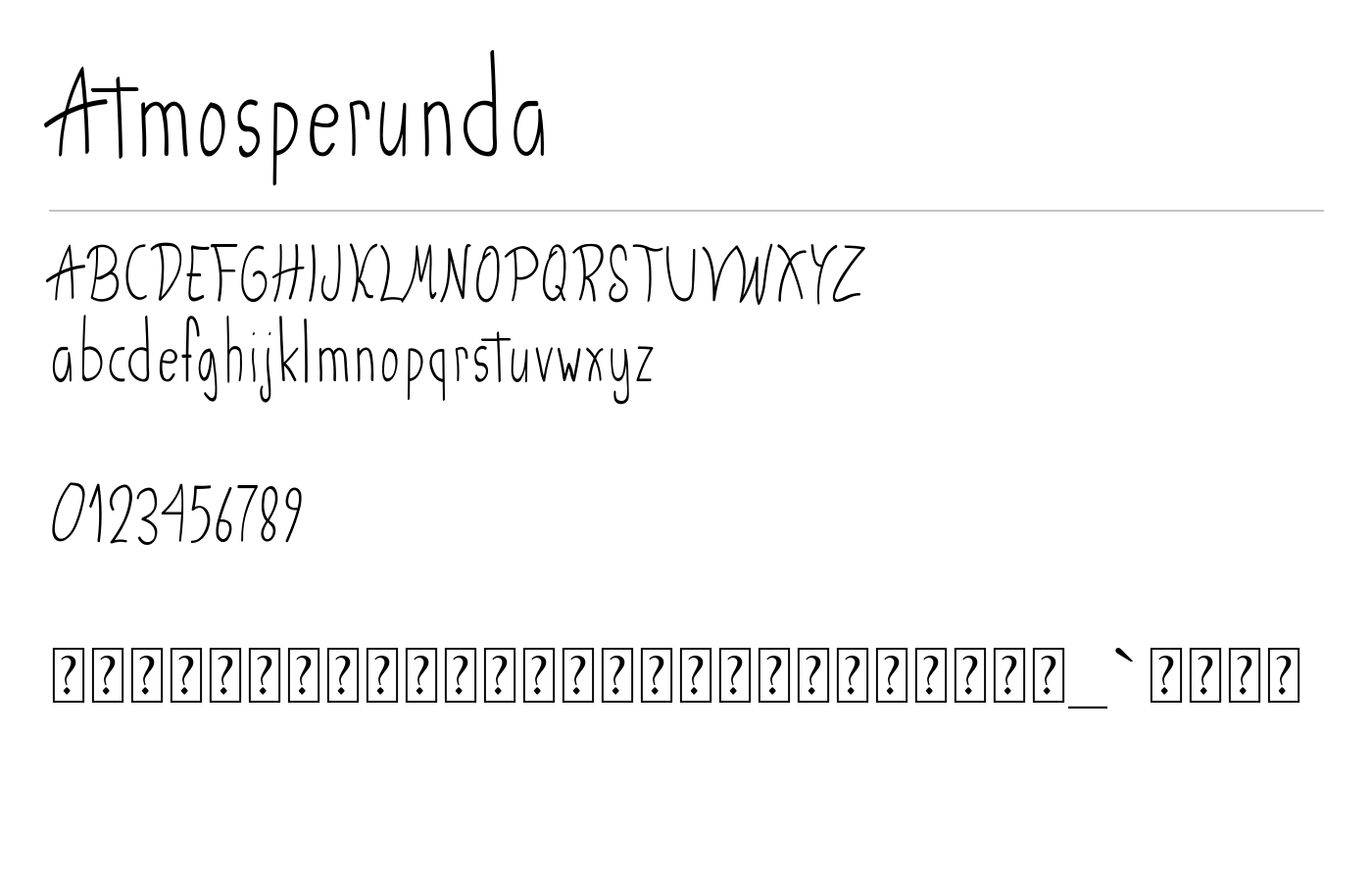
Atmosperunda is a slender, hand-drawn sans serif font with a casual, playful vibe. Its tall, narrow letterforms and smooth, uneven strokes give it an approachable, organic feel, making it ideal for creative projects, informal branding, and children's content where a lighthearted and friendly tone is desired.
Atmosperunda Font